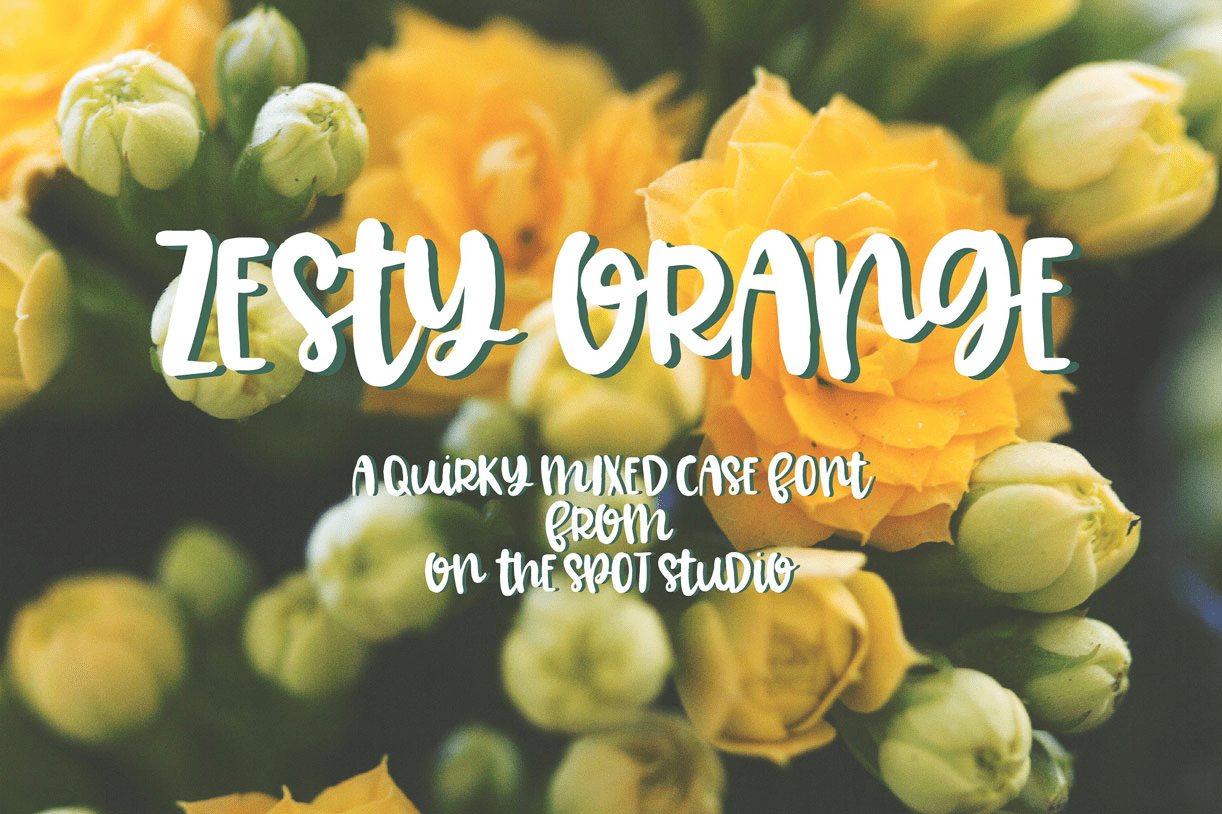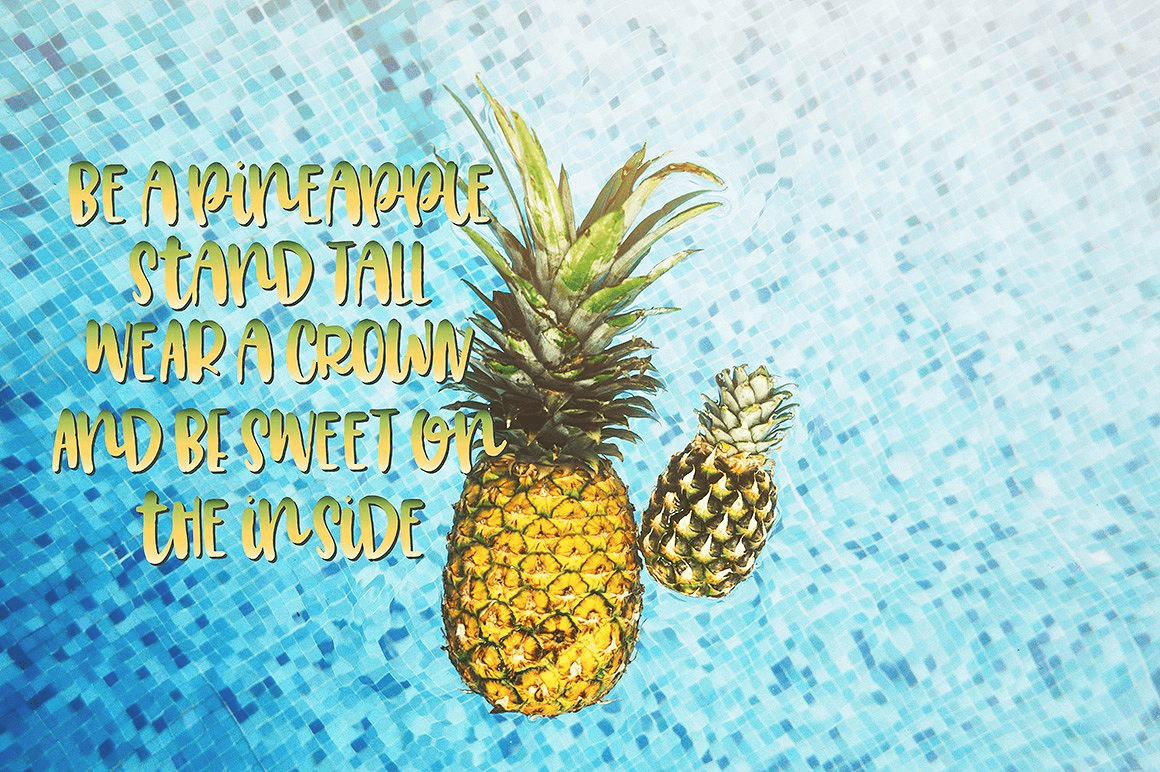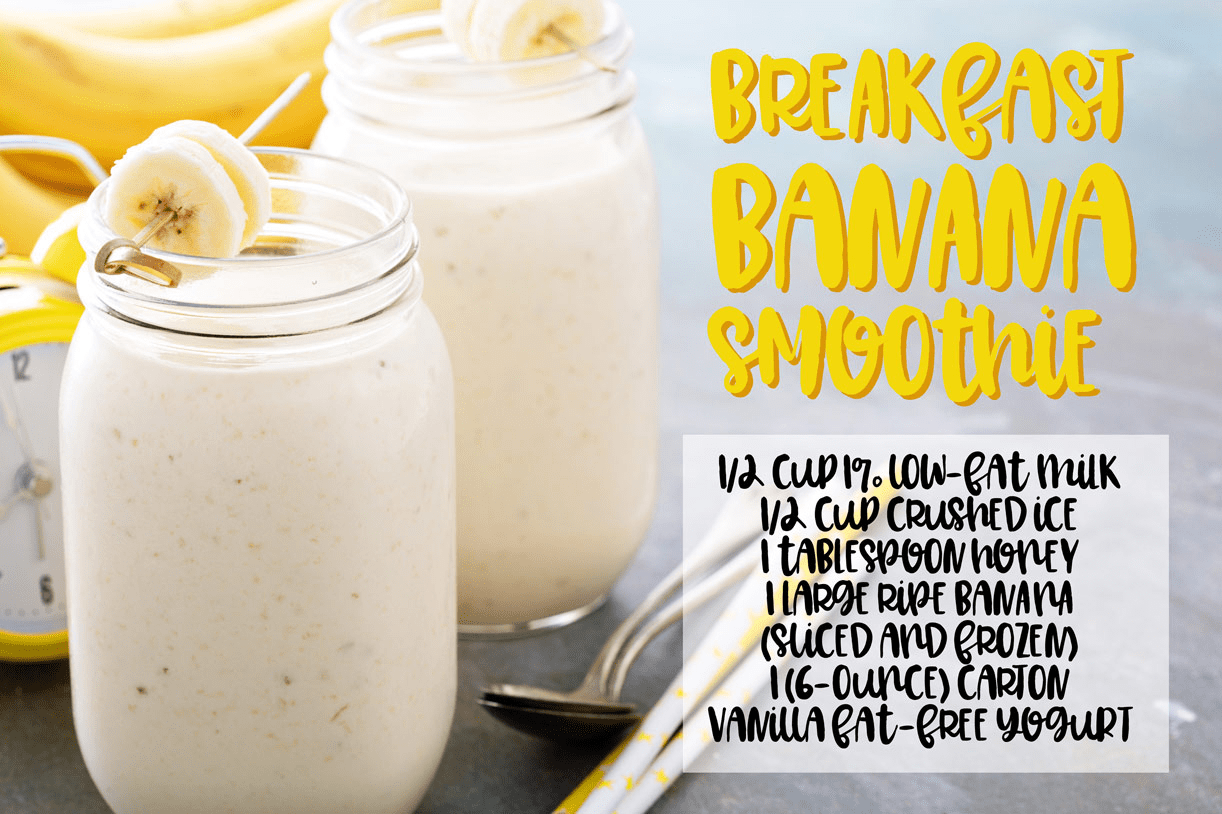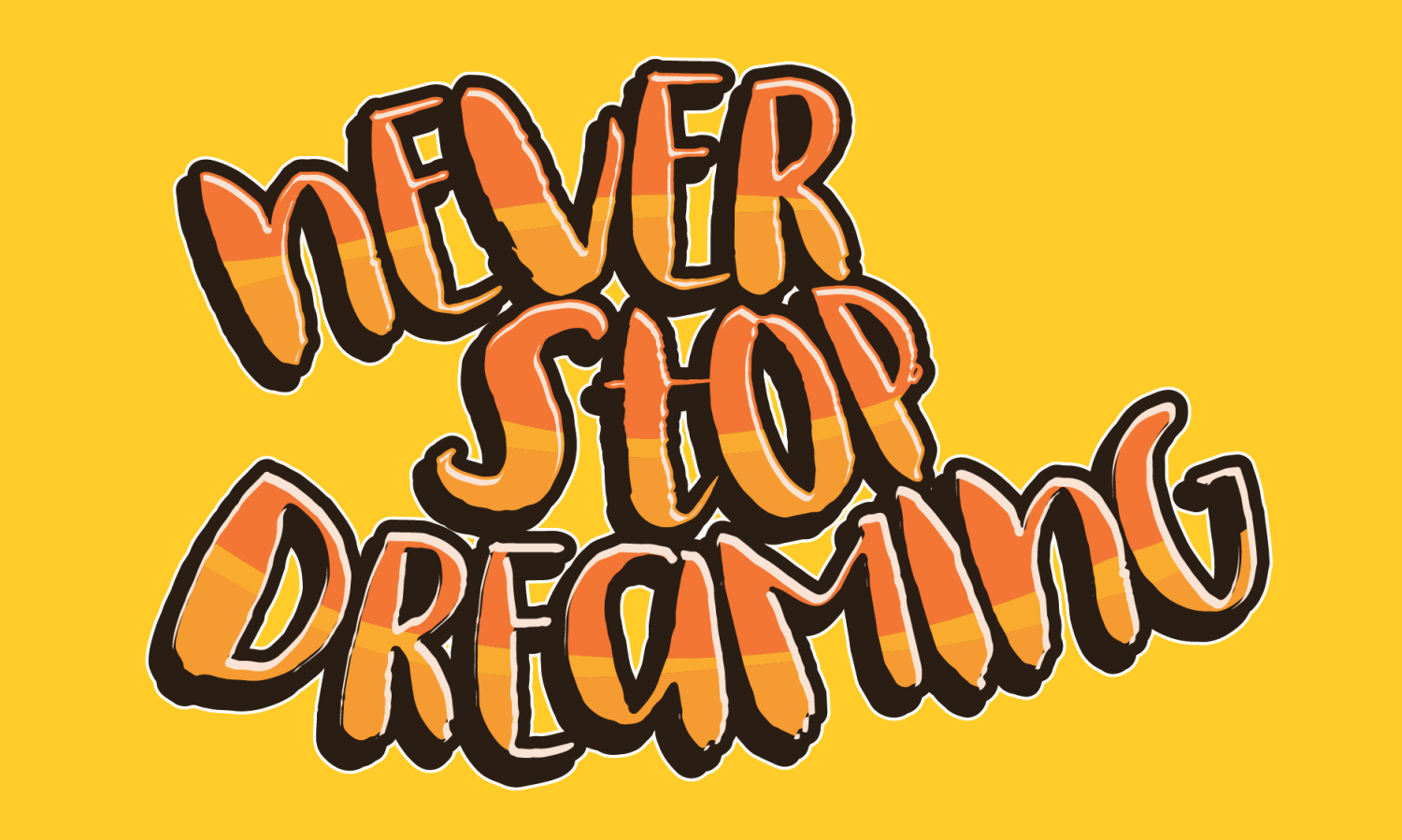
Zesty Orange
Zesty Orange is a fun mixed case font GREAT for headlines and projects! Includes TTF and OTF files Accents & Punctuation Included! Multiple letter styles available as well! Mix it up!